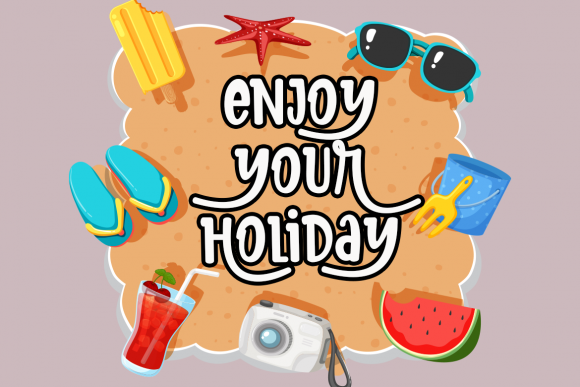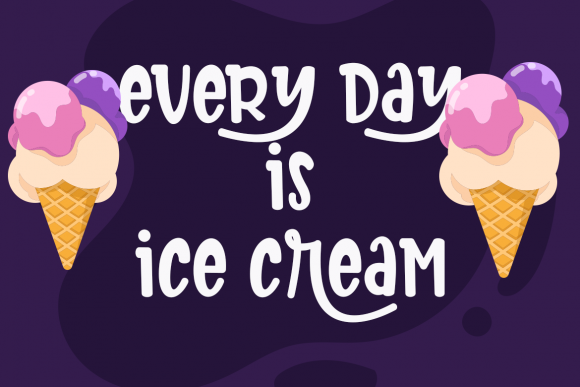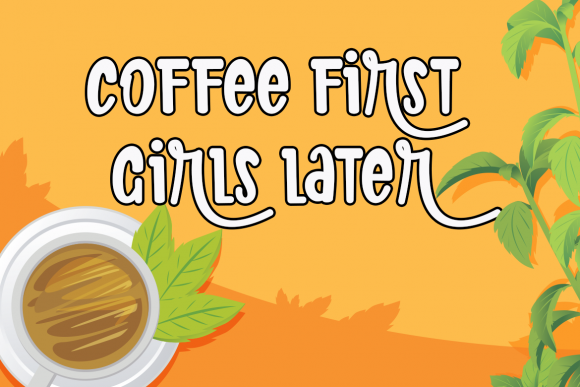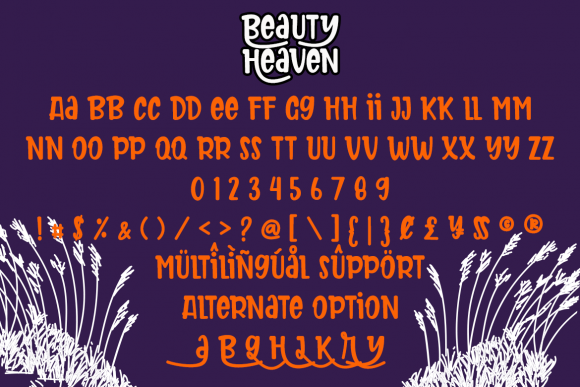
There’s nothing quite like the rush of excitement that comes with discovering a new font that perfectly captures the essence of your creative vision. For designers, the hunt for that perfect font is a constant quest, and when you finally find it, the results are nothing short of magic. I still remember the day I stumbled upon the Beauty Heaven Font, and I knew right then and there that it was going to be a game-changer.
Beauty Heaven Font is a cute and fun display font that adds a touch of whimsy to any design. Whether you’re creating a logo, a social media graphic, or a flyer, this chunky lettered font is sure to make your designs come alive. And with its PUA encoded feature, you can access all of the glyphs and swashes with ease, giving you endless possibilities to experiment and express your creativity.
For designers, the Beauty Heaven Font is a valuable addition to their toolkit. Its playful and feminine vibe makes it perfect for projects that require a touch of sweetness and charm. With this font, you can create designs that are not only visually appealing but also convey a sense of personality and style.
Beauty Heaven Font Key Features
- Unique Characteristics: The Beauty Heaven Font features a unique blend of elegance and sophistication, with intricate details and ornate flourishes that set it apart from other fonts.
Beauty Heaven Font Review
Overall, I found the Beauty Heaven Font to be a visually appealing choice for beauty and lifestyle brands. ✨ Here are some things that worked well:
- Unique and elegant design, perfect for creating a luxurious atmosphere
- Wide range of weights and styles, allowing for flexibility in design
- Works well for headings, subheadings, and body text
- May not be the best choice for highly technical or serious content, as it can come across as overly decorative ⚠️
- Some characters may not be available in certain languages or scripts
Overall, I think the Beauty Heaven Font is a great choice for beauty and lifestyle brands looking to create a high-end, luxurious feel. While it may not be suitable for all types of content, it’s a versatile and visually appealing option that’s worth considering.
The Beauty Heaven Font is perfect for:
– Beauty and wellness branding
– Fashion and lifestyle marketing
– Health and wellness content creation
– Cosmetics and skincare packaging
Alternatives to Beauty Heaven Font
Playfair Display is a high-end serif font, perfect for luxury brands and high-end fashion magazines. It’s ideal for headings and titles where you want to add a touch of elegance and sophistication. Compared to Beauty Heaven Font, Playfair Display is more formal and luxurious, making it suitable for high-end brands and publications.
Great Vibes is a modern script font, ideal for creative and artistic projects. It’s perfect for titles, headings, and quotes where you want to add a touch of personality and flair. Compared to Beauty Heaven Font, Great Vibes is more casual and playful, making it suitable for fashion, beauty, and lifestyle brands.